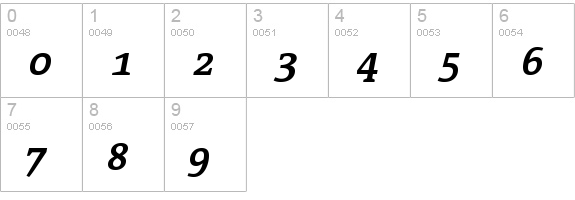
TheAntiquaSun Bold Italic is a strong, high-contrast, italic variant in the TheAntiquaSun typeface family \xE2\x80\x94 well suited to headlines, attention-grabbing titles, and strong calls-to-action.
TheAntiquaSun Bold Italic is an exquisite font that effortlessly blends elegance with a touch of sophistication. Its bold strokes and italicized slant create a sense of dynamic movement, making it perfect for capturing attention and adding a touch of drama to any design project. This beautiful font showcases a timeless style that harks back to the golden age of typography, reminiscent of vintage book covers and classical signage. Its intricate detailing and graceful curves exude an air of refinement and charm, making it an ideal choice for projects that require a touch of traditional elegance. TheAntiquaSun Bold Italic is not only visually stunning but also incredibly versatile. Whether you're designing a wedding invitation, a logo, or a magazine spread, this font will effortlessly elevate your creation to new heights. Its boldness commands attention, while its italicized slant adds a hint of intrigue and sophistication. What makes TheAntiquaSun Bold Italic even more remarkable is that it is freely available for download at FontsMarket.com. This means that you can add this stunning font to your collection without any cost, making it a fantastic resource for both personal and commercial projects. The ease of access allows designers and enthusiasts alike to explore the endless possibilities that this font offers, bringing their visions to life with a touch of timeless beauty. In conclusion, TheAntiquaSun Bold Italic is a font that combines elegance, sophistication, and versatility in one stunning package. Its bold strokes, italicized slant, and intricate detailing make it an ideal choice for any design project, while its availability as a free download at FontsMarket.com ensures accessibility for all. Embrace the beauty of TheAntiquaSun Bold Italic and let your creativity soar to new heights.